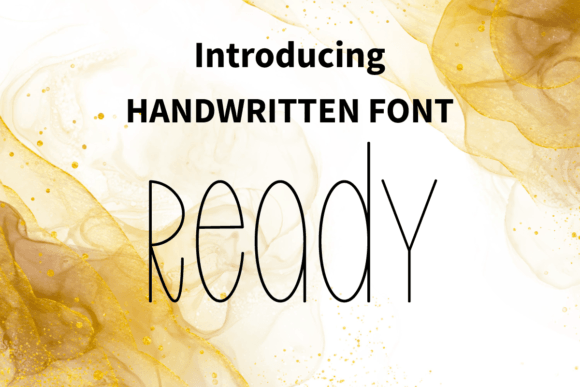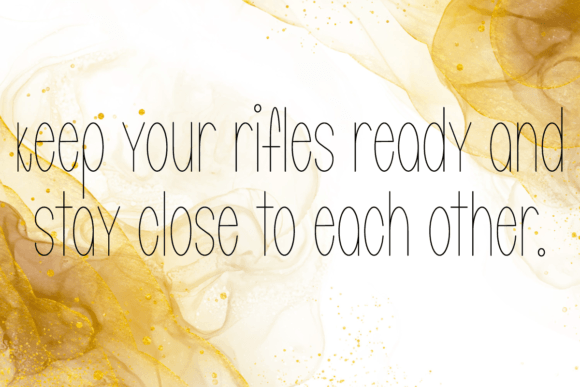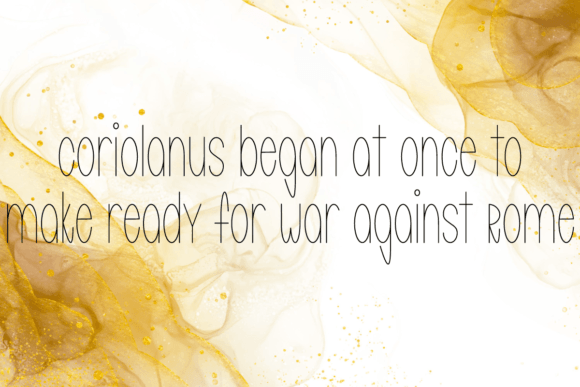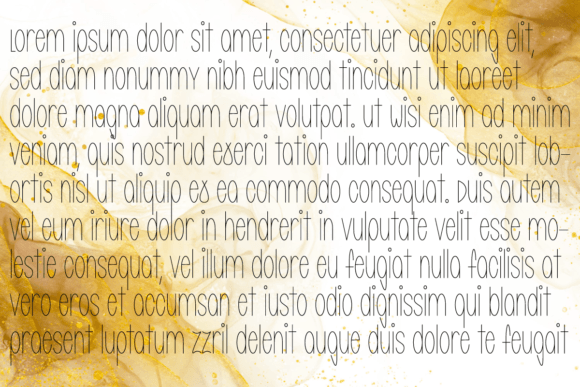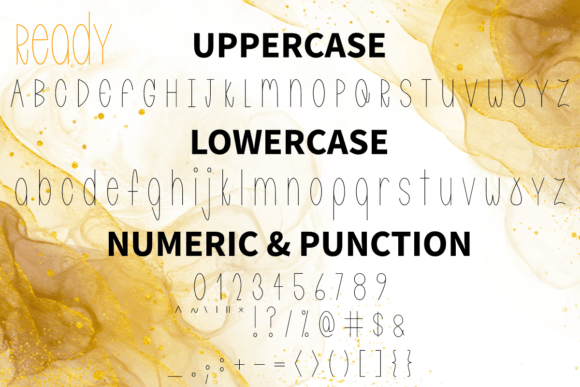
Ready Font
About Ready Font
Ready Font is a simple handwritten script that feels whimsical, fun, and approachable. With its casual strokes and quirky details, it adds personality to every design. Because of its friendly look, Ready Font is perfect for projects that need a creative yet natural touch. Whether used in logos, invitations, or print layouts, this font delivers charm and versatility.
A Fun Handwritten Typeface with Character
Handwritten fonts often carry warmth, and Ready Font captures that feeling beautifully. Its relaxed letterforms bring a cheerful style to your designs. Moreover, it stays clear and readable, even in detailed layouts. As a result, this typeface works well for both casual and professional projects, giving designers freedom to explore new ideas.
Perfect Typeface for Invitations and Quotes
If you enjoy creating event stationery or inspirational quotes, Ready Font is a great choice. For example, it can turn wedding invitations into joyful keepsakes. In addition, it adds style to greeting cards, posters, and thank-you notes. Because of its playful energy, every message looks heartfelt and unique, making it a valuable tool for personal projects.
A Script Typeface for Branding and Magazines
Brands that want to appear approachable and stylish can use Ready Font for logos, packaging, and advertising materials. On magazine covers or editorial spreads, this handwritten script adds creativity without losing professionalism. Furthermore, it works wonderfully in social media graphics, giving posts and banners a lively and engaging tone.
Another strength of Ready Font is its flexibility. In print, it looks beautiful on posters, business cards, brochures, and merchandise. Digitally, it enhances websites, blogs, and presentation slides. Since it pairs well with clean sans serif fonts, designers can achieve a modern balance that combines readability with creative flair.